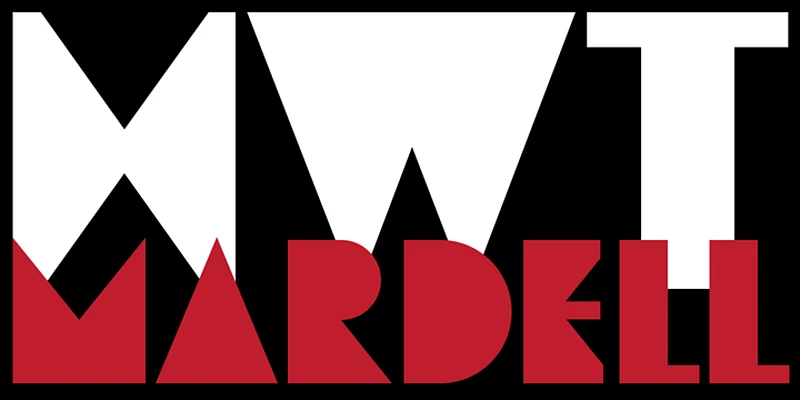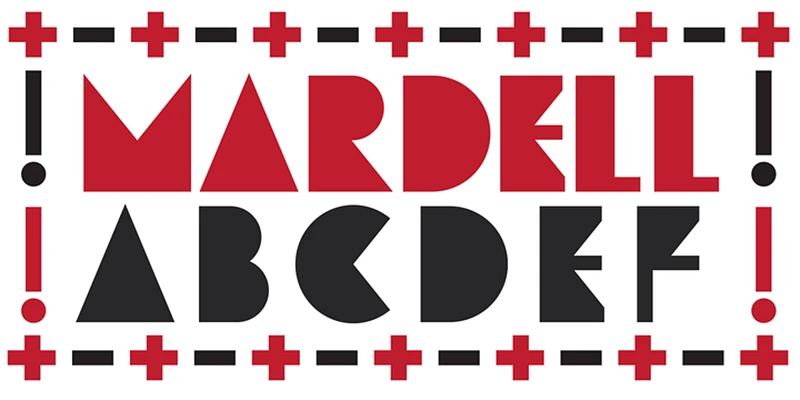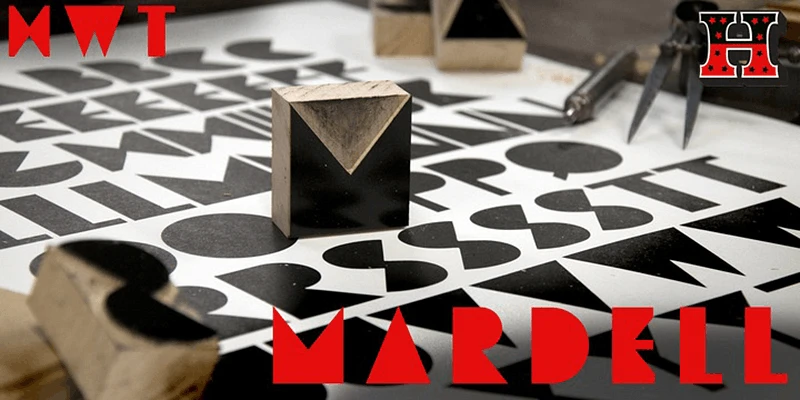
Louise Fili did a remarkable thing with her first-ever typeface, the Italian Futurist-inspired HWT Mardell. She made a geometric design without strictly adhering to a system. Fili allowed herself to play, resulting in innovative solutions to problematic characters. Have a look at: E F J K 3 & $. With its angular, constructed letterforms, the no-nonsense design is also a fitting tribute to the woman it was named for: veteran Hamilton Manufacturing type cutter Mardell Doubek.